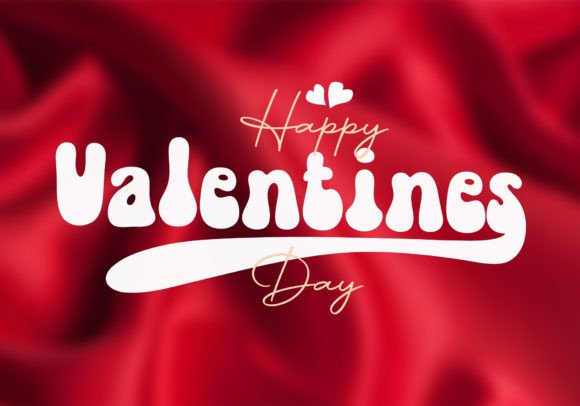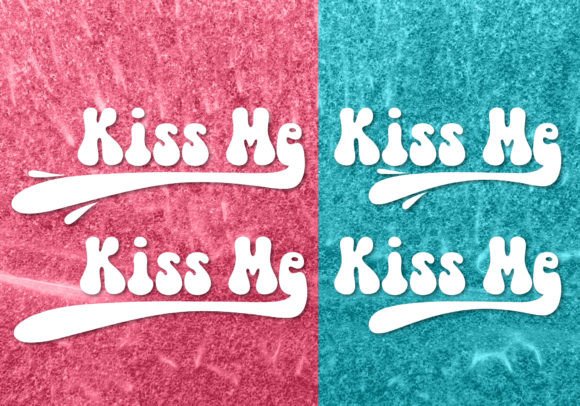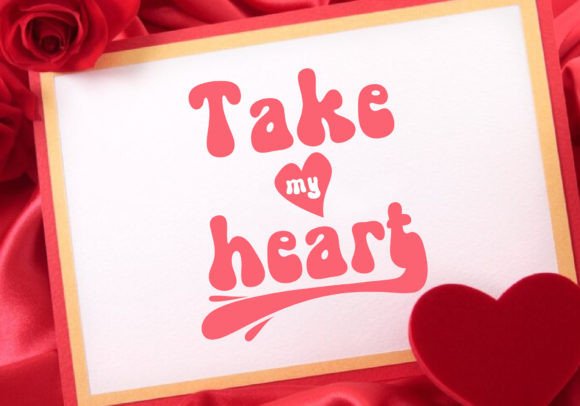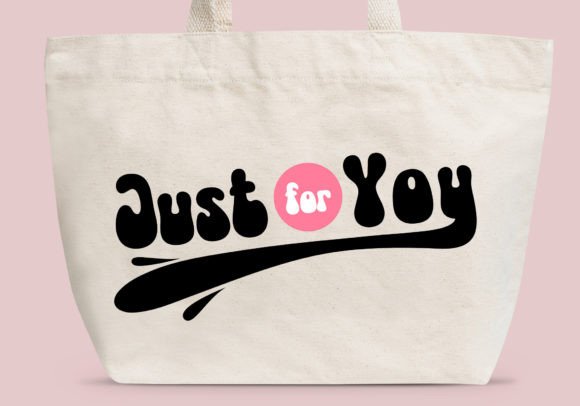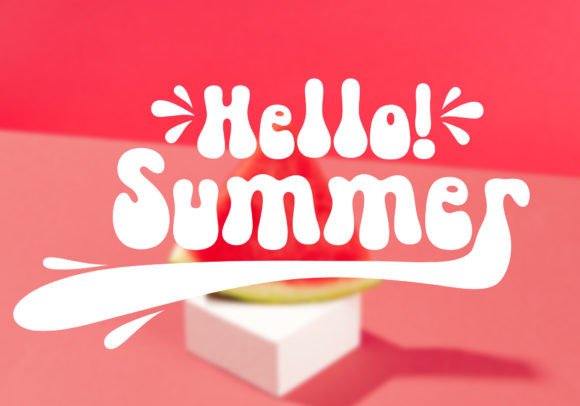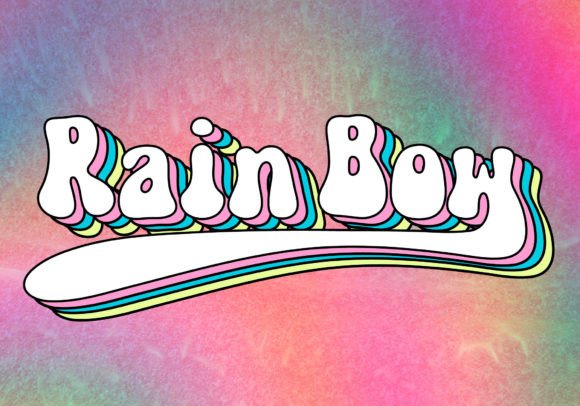
Introduction to Juicy Love Font Font
Fonts play a crucial role in design, and the Juicy Love Font font is a typeface that brings both character and versatility to any project. Whether you’re working on a branding project, a website, or a print design, the Juicy Love Font font offers a unique style that can elevate your work.
Juicy Love font is a groovy, fun display font with a great punch.
Everything written in this font will be instantly recognizable and will attract attention It will work great for comic book style, online games, cards, love shirts, posters, movie titles, eye-catching social media posts, or anything that requires youthfulness and courage.
Key Features of Juicy Love Font Font
Why Choose Juicy Love Font Font?
The Juicy Love Font font is more than just a typeface – it’s a design tool that helps you communicate your message with style and clarity. Its unique character set and versatile design make it suitable for a wide range of applications, from elegant invitations to bold headlines.
With its carefully crafted letterforms and balanced proportions, the Juicy Love Font font ensures readability and visual appeal across all mediums.
What makes Juicy Love Font font special?
The Juicy Love Font font stands out with its unique design, exceptional readability, and versatility across various design applications.